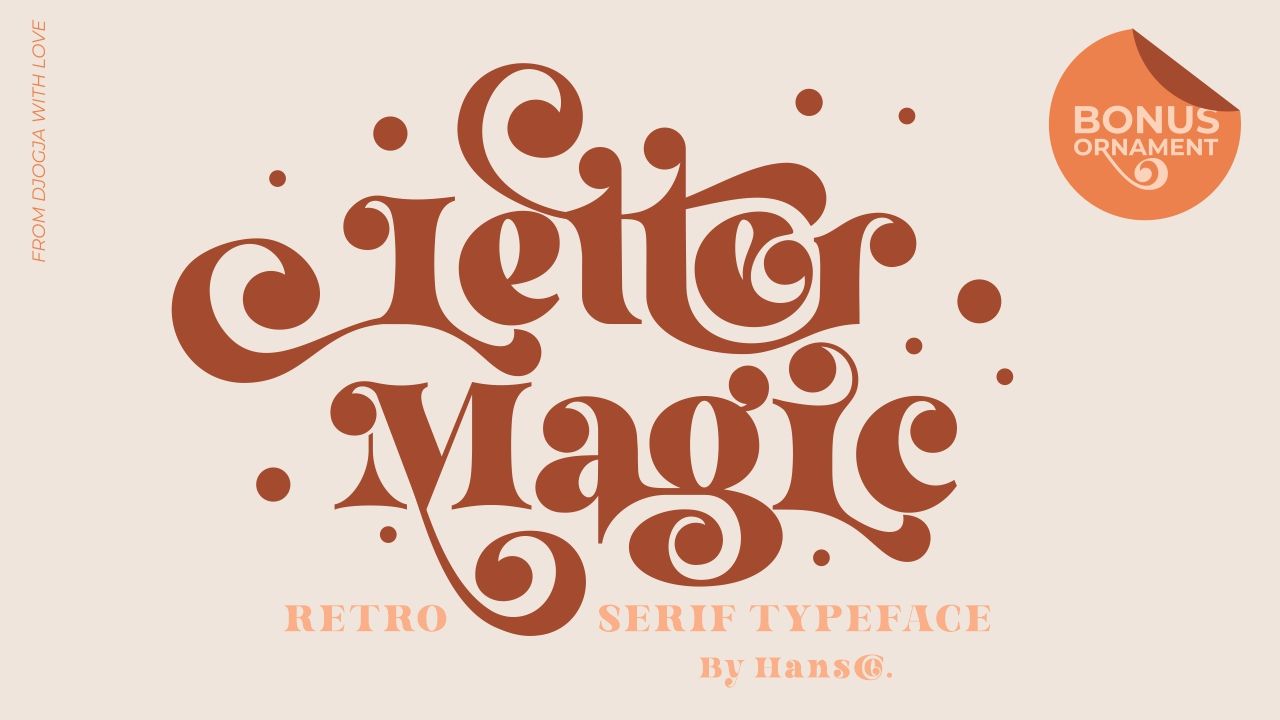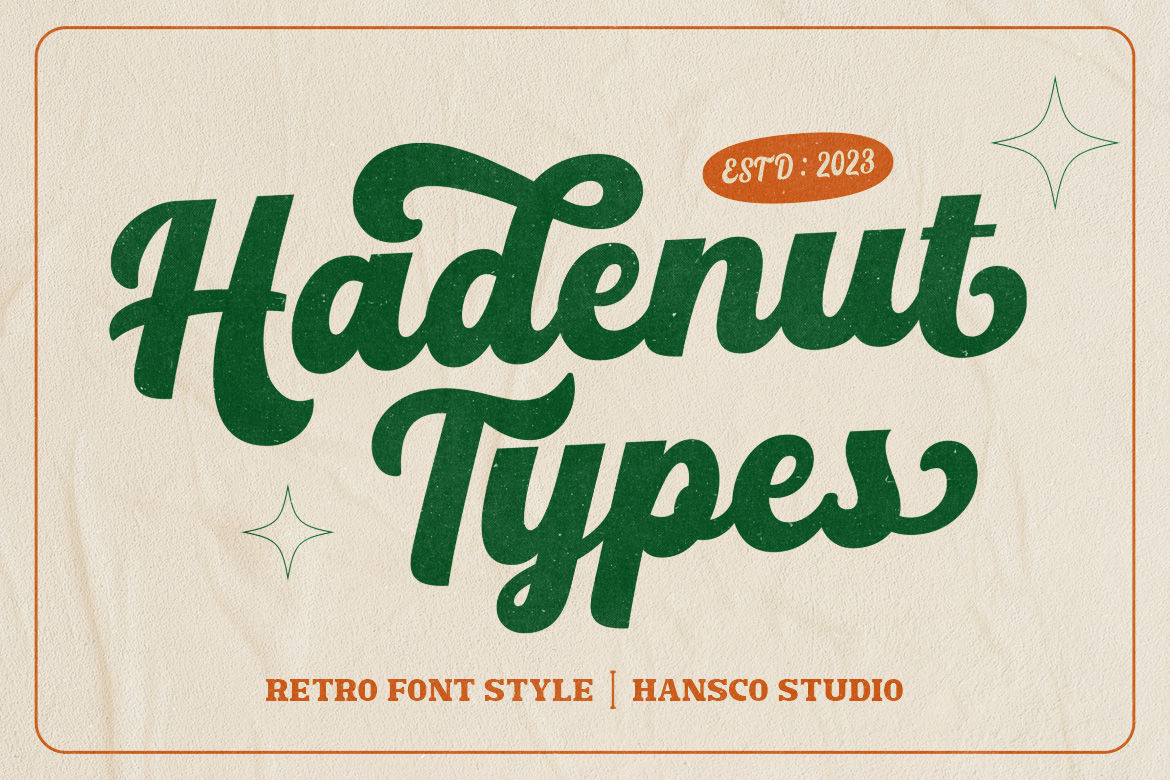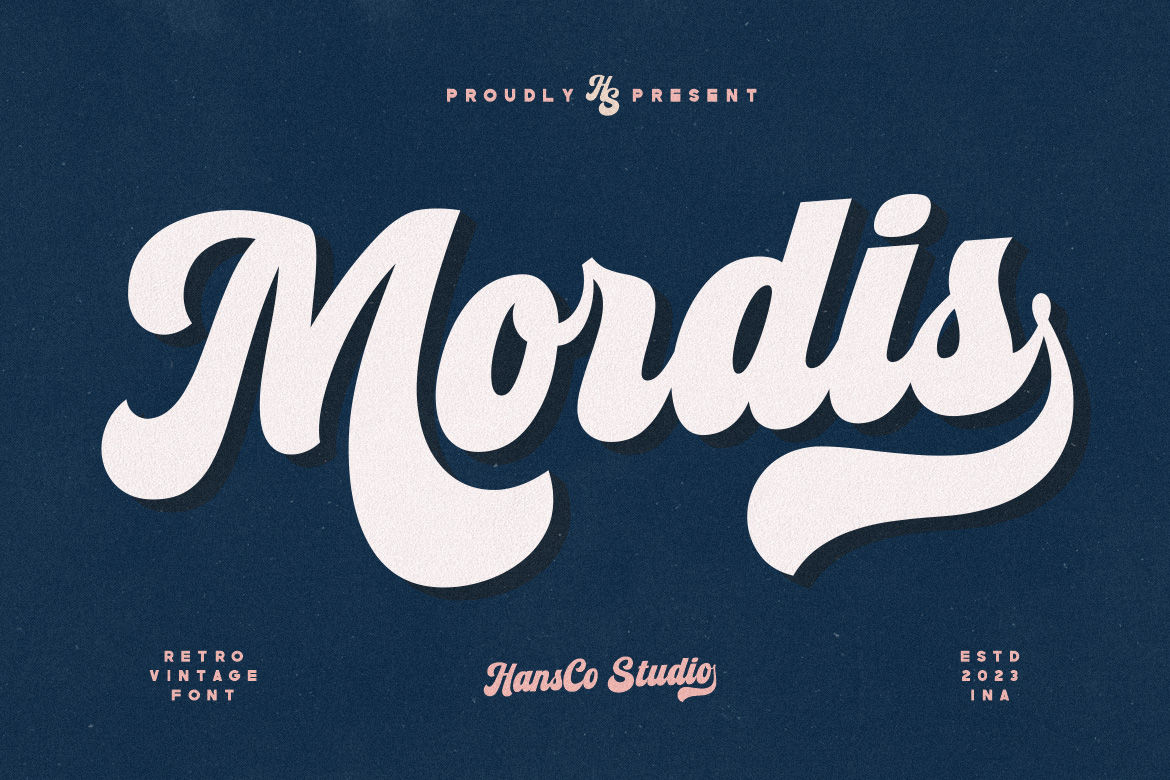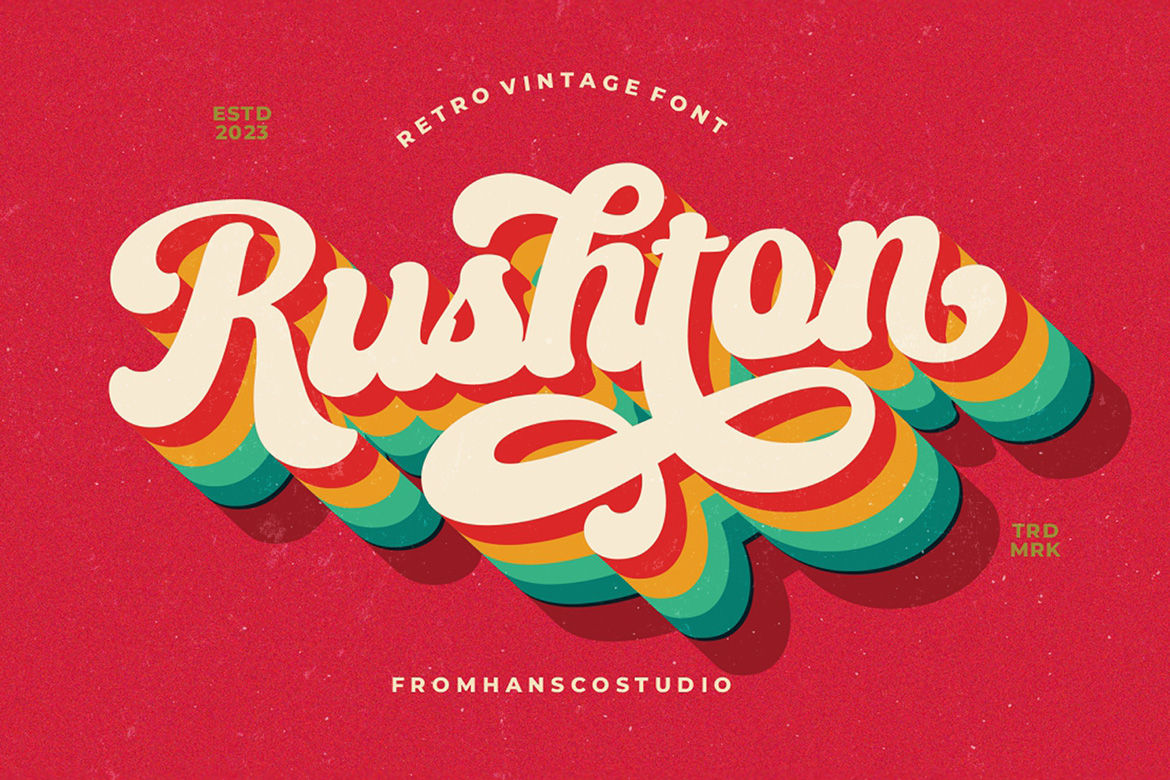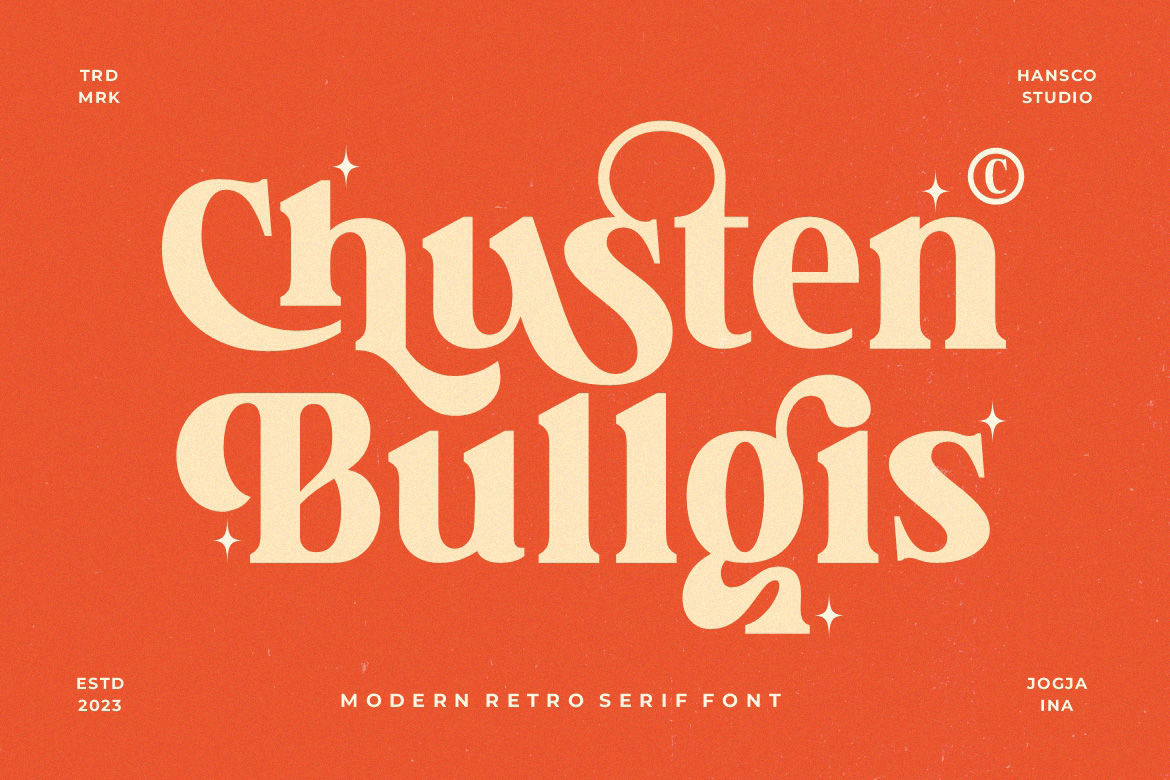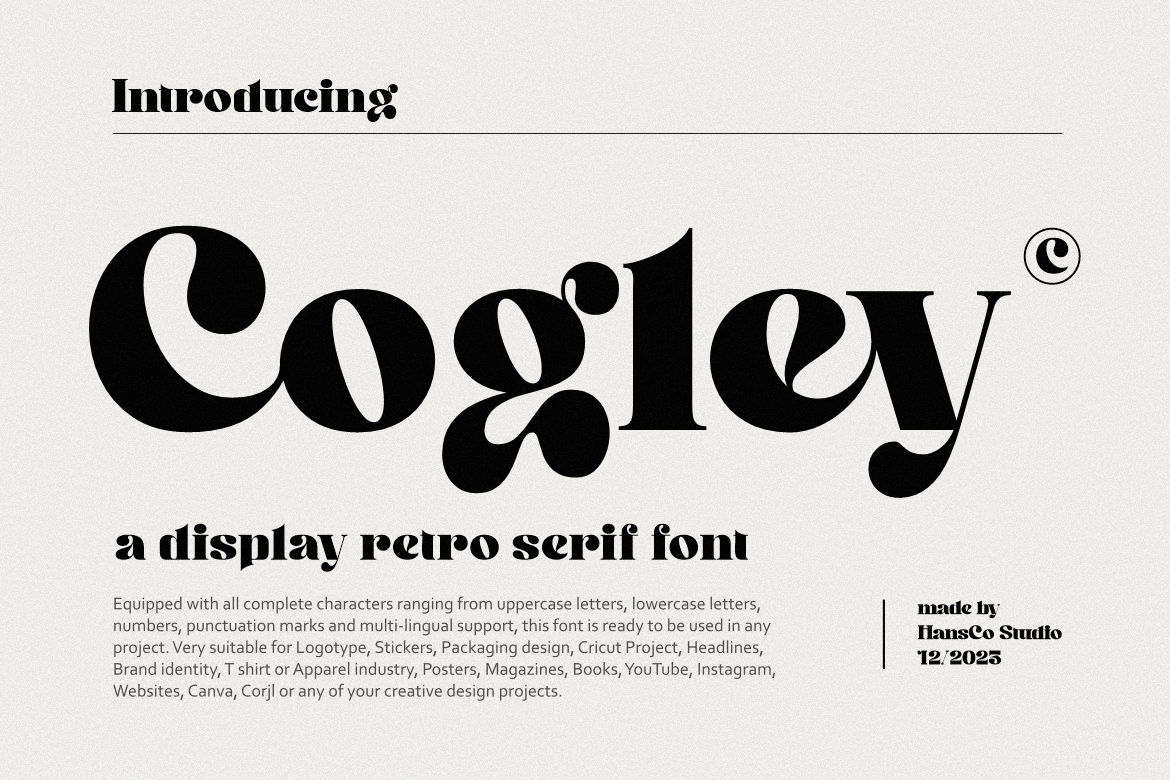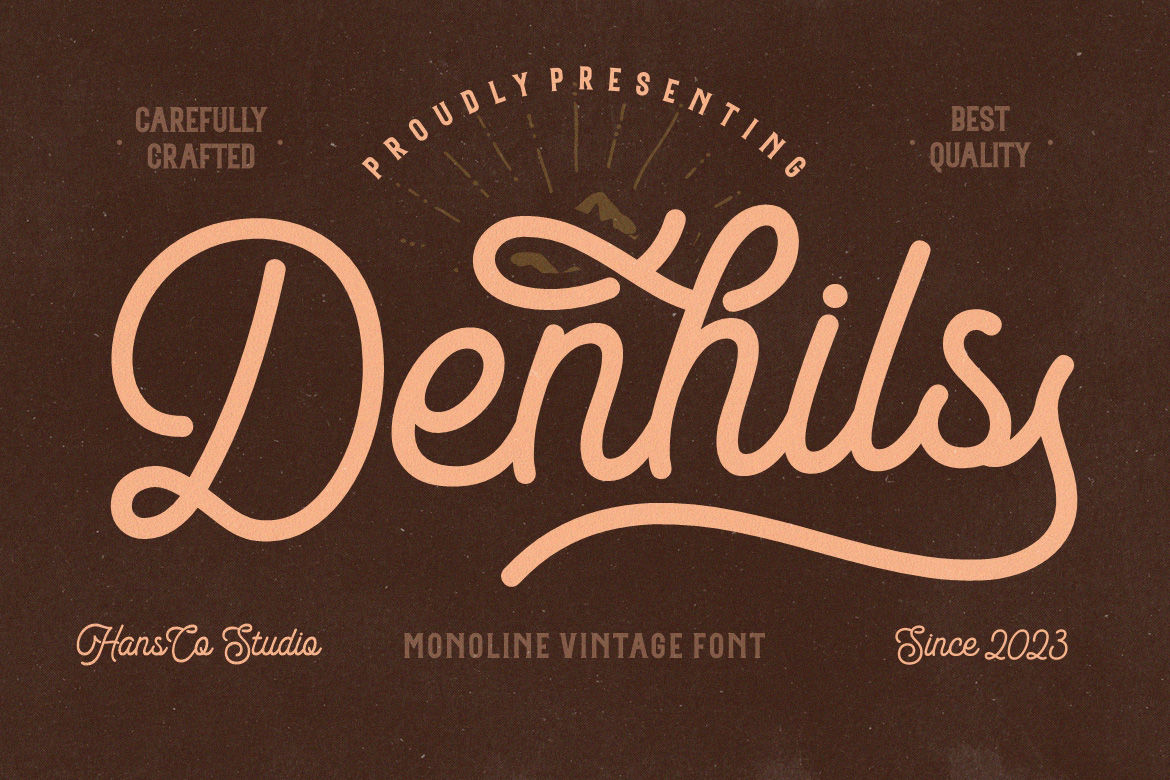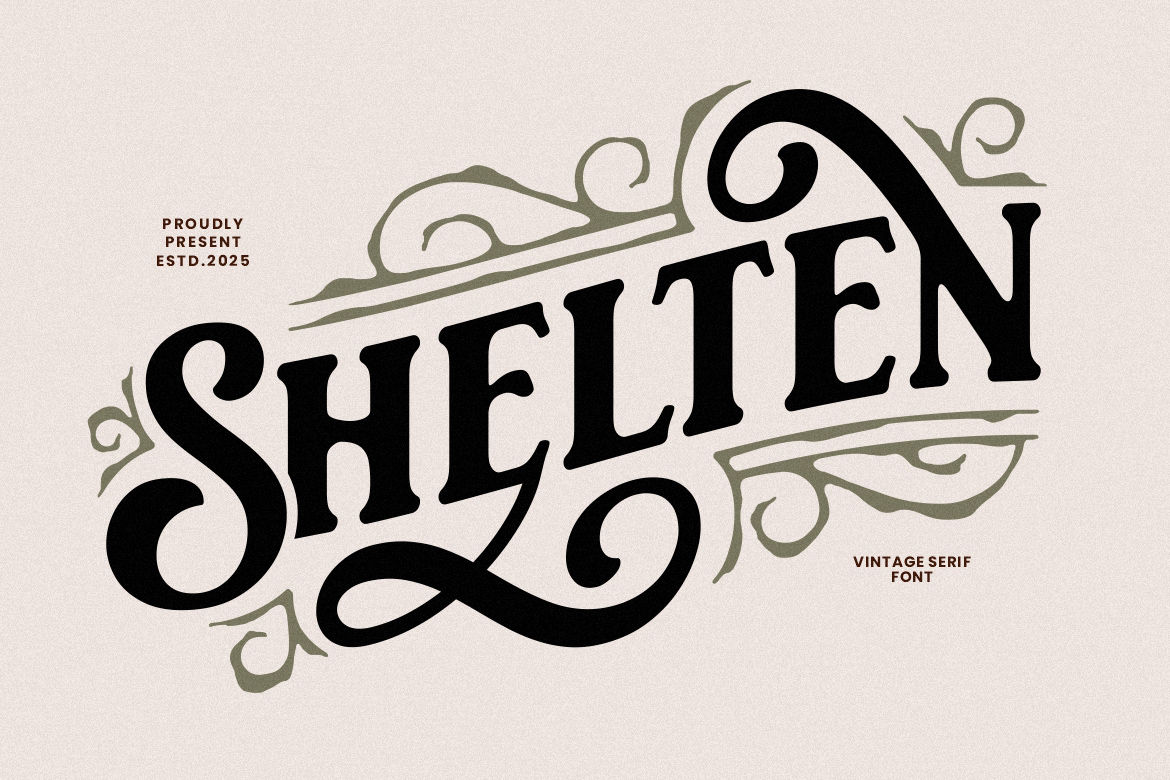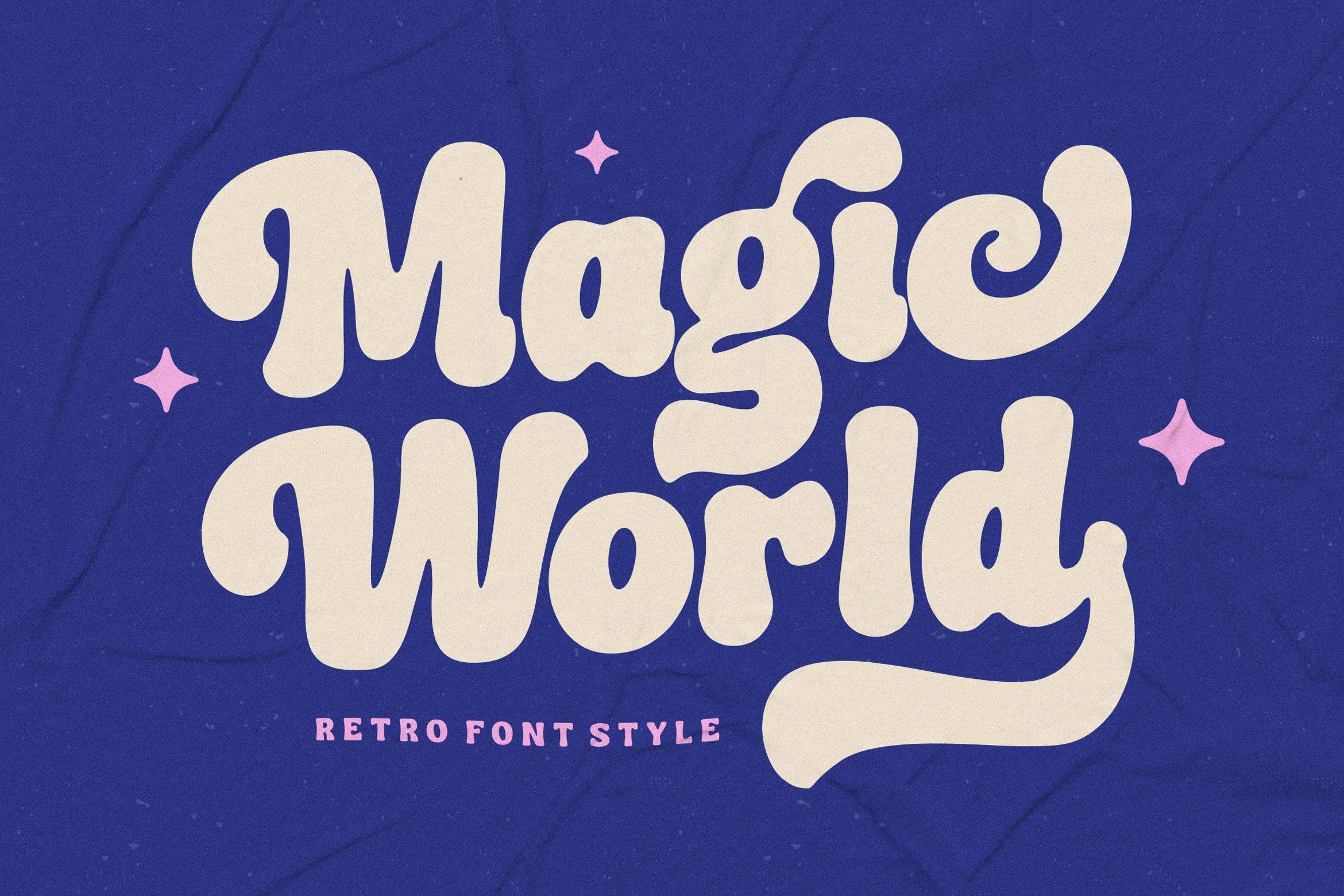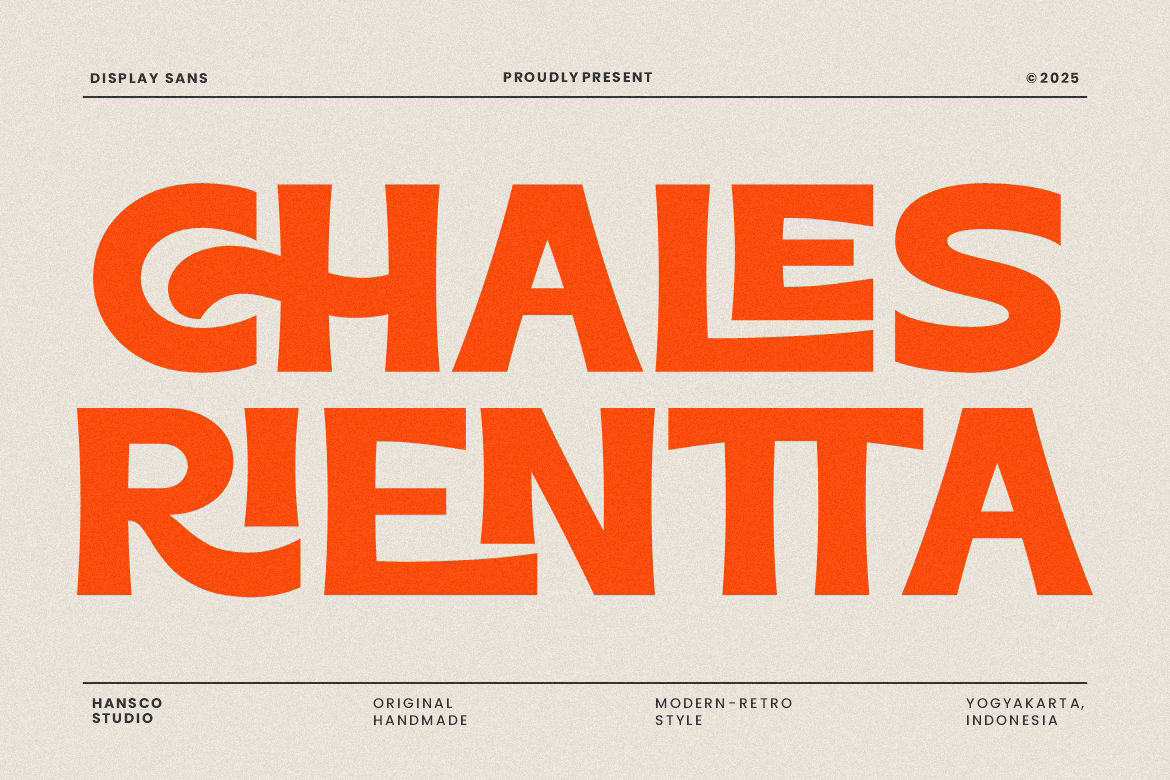
15 Aesthetic Font 90s: Bring Back Nostalgic Vibes to Your Design
90s designs, especially in typography, have become a hit lately. The aesthetic concept of font 90s can easily grab audiences’ attention and many brands utilize it to create nostalgic feeling to their designs.
Throughout this article, let’s explore top 15 aesthetic fonts from HansCo Studio that radiate 90s and Y2K styles. Having them in your designs will surely evoke familiar feelings and build solid emotional connections to your audiences.
Best Font 90s Recommendation for Your Aesthetic Design
90s typography is mainly characterized by its playful, grunge, and chunky features. It could make your design stand out with its “imperfect” aesthetics, yet can strike nostalgic charms. Check these recommendations from HansCo Studio for the best 90s fonts for your aesthetic designs!
1. Chales Rientta
Offering versatility for multipurpose designs, Chales Rientta is a serif font highly recommended for branding and advertising purposes. The features include lowercase, uppercase, numerals, symbols, punctuation, and ligature set.
This typeface can make a statement once it’s combined with a bold design. Absolutely adding a retro touch and memorable element, effective for specific target audiences.
2. Chusten Bullgis
It offers a playful and aesthetic look, incredible to use for many purposes. Depending on your intent, Chusten Bullgis can be applied to retro pop culture branding and even fashion content. It totally has the potential to make your design become number one favorite.
3. Cogley
If you want more awesome font 90s for your versatile designs, then Cogley is a must choice. It can be applied to any designs, ranging from logos, posters, website, apparel, to packaging.
Though it has bold retro vibes, Cogley offers a modern and clean look, perfect for edgy and dynamic designs. Try this and see how it can capture internet attention.
4. Denhils
As a monoline type font, Denhils comes with smooth characters and a modern vintage aesthetic look. Its readability design makes it suitable for digital display such as headlines and web interfaces.
Monoline type is also characterized by its sleek look, which is considered sophisticated during 90s design eras. As for now, the sleek design is strongly ideal for delivering flexible yet trendy innovation.
5. Feelin Teachy
Feelin Teachy is one of those retro serif fonts that bridge vintage aesthetic and elegance with playful attractiveness. It’s a great choice, especially for building historical branding with a sense of elegance.
Feelin Teachy is also not necessarily formal, so it can elevate designs to be more artistic and sophisticated. Style them with textures and colors, then you will get maximum retro impact to your designs.
6. Hadenut
If your branding purposes are more inclined to nostalgia and old school advertising, Hadenut offers excellent reference. It features stylized shapes to evoke aesthetic charm and is very suitable for both small businesses or big companies.
For advance pairing, Hadenut can be combined with sans-serif to a create cleaner design without eliminating the nostalgic effect. You can also use typical retro color pallets featuring mustard yellow and cream for more eye-catching results.
7. Hocklyn
Hocklyn is a type of vintage and lettering font 90s that will remind you of old album covers and old store signboards designs. Using Hocklyn in your projects can add a positive nostalgic feeling with funky vibes.
Different from plain fonts, Hocklyn is featuring ligatures and swashes, perfect for playful and decorative themed designs. It greatly matches minimalist fonts to keep balance and attractive.
8. Letter Magic
Letter Magic has bold and elegant designs, ideal for creating logos with a perfect mix of nostalgia and visual identity. Your logo will not merely look aesthetic, but has a solid unique voice.
The distinct shape also creates identifiable logos, making your brands easily recognized by a wide range of audience. If you want to keep the 90s authenticity, it’s preferable to combine the typeface with worn textures.
9. Magic World
This one is also included as a retro font, but characterized with rounded style. In the 90s era, this typeface was widely used in packaging, album covers, and tech advertisements. Unlike the strong and harsh corner style, this type offers a softer appeal and welcoming vibes.
That’s why Magic World can work excellently for lifestyle and youthful products. Pastel color pallets are more recommended to use to balance the design and adding extra retro touch.
10. Mordis